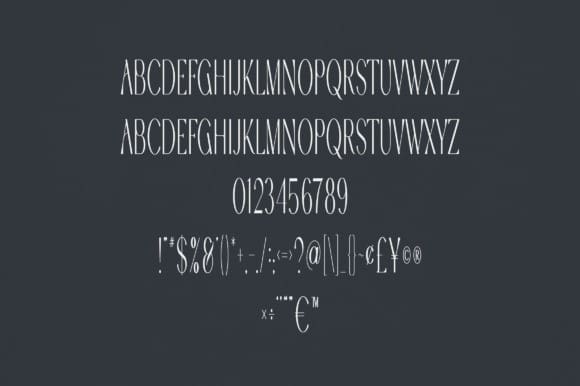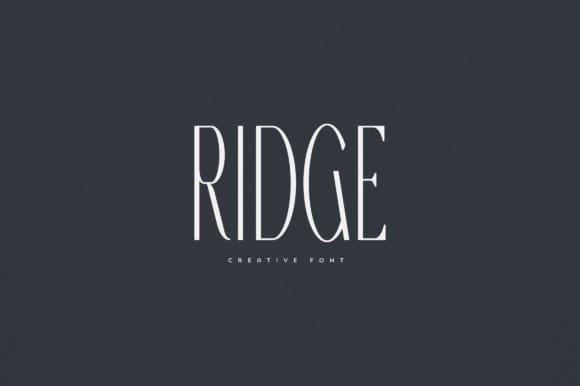
Ridge Font
Ridge Font is an elegant and versatile display font that will make your typography truly unique! It will enchant every logo, branding, headline, or plain text!